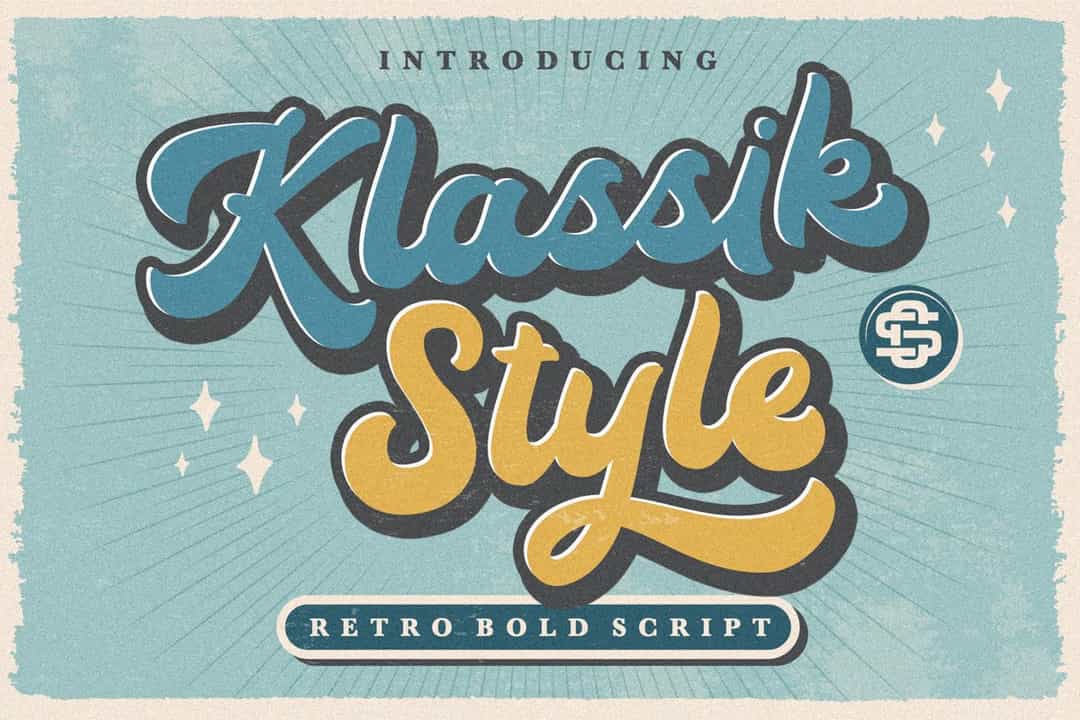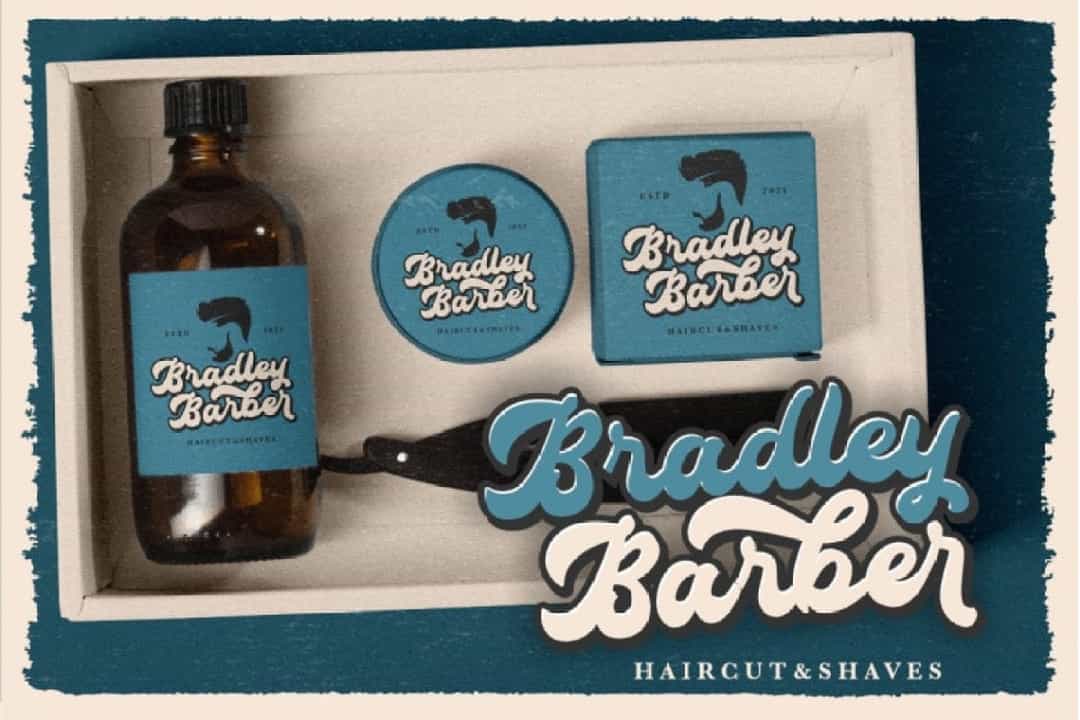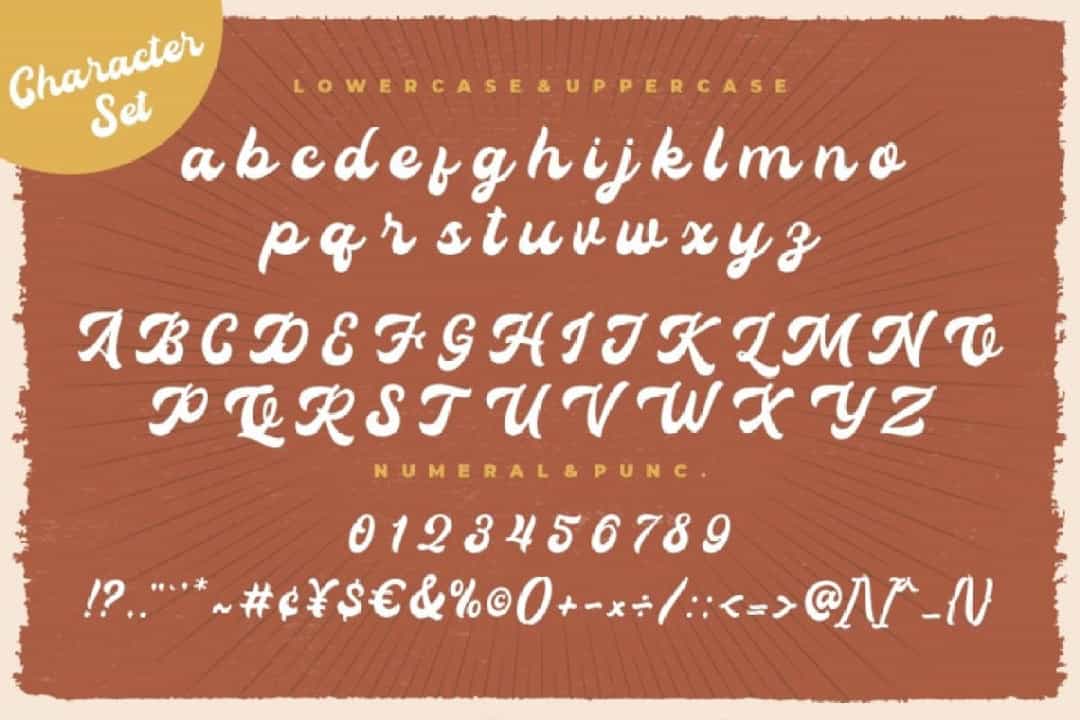
Klassik Style is a bold and retro-styled script font inspired by vintage posters that’s great for vintage projects such as logos, branding projects, wedding designs and advertisements, social media posts, packaging and labels, photographs, watermarks, invitations, stationery etc.